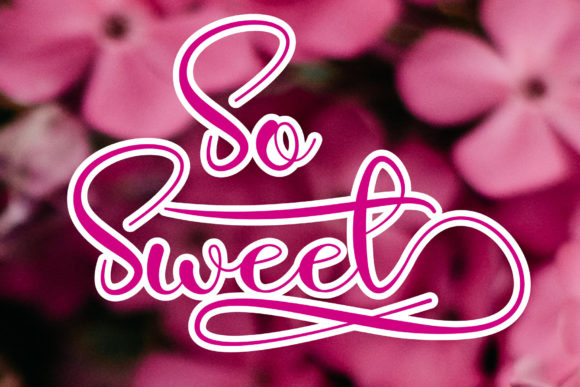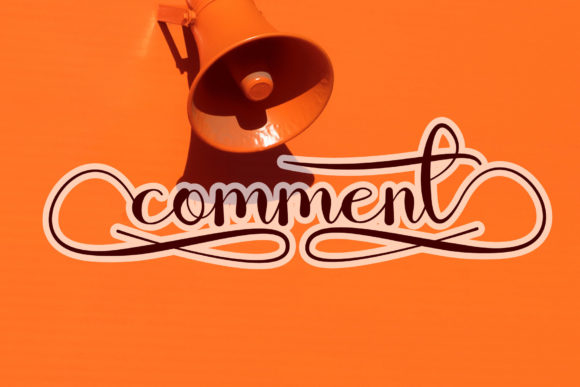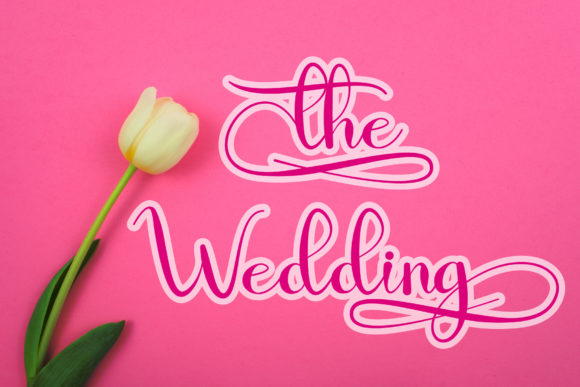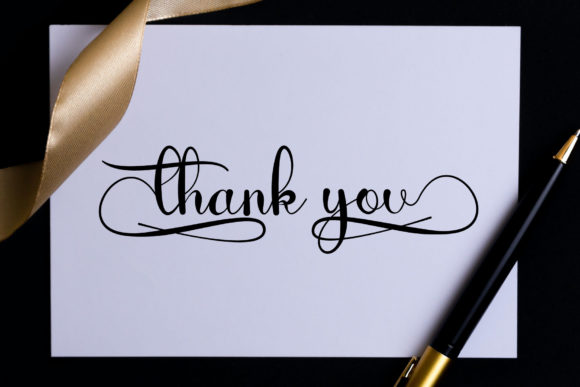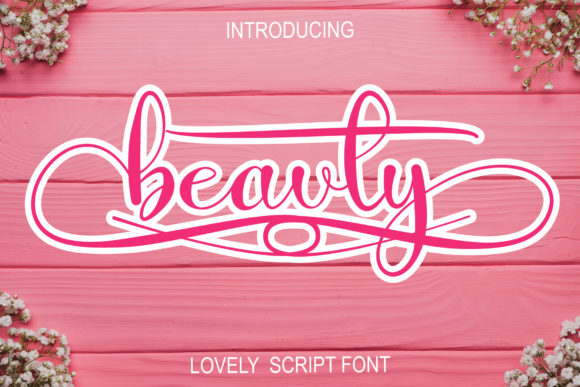
Introducing Beauty Font: The Epitome of Elegance and Charm
Are you a designer or crafter looking for a font that exudes romance and sophistication? Look no further than Beauty Font, a stunning handwritten font that embodies the very essence of charm and elegance. With its delicate and flowing characters, Beauty Font is the perfect choice for projects that require lovely, romantic typography.
Handwritten fonts have a unique ability to add a personal touch to any design project. They evoke feelings of warmth, intimacy, and connection, making them ideal for a wide range of applications, from wedding invitations and greeting cards to branding and packaging. Beauty Font takes this to the next level with its exquisite and intricate design, making it a standout among other handwritten fonts.
What Makes Beauty Font So Special?
Beauty Font is more than just a pretty face. It’s a carefully crafted font that has been designed to make your designs shine. Here are just a few features that make it so special:
- Delicate and Flowing Characters: Each character in Beauty Font has been carefully designed to be delicate and flowing, with a sense of movement and elegance. This creates a beautiful, organic feel that’s perfect for romantic and feminine designs.
- Charming and Elegant: Beauty Font embodies charm and elegance in every character, making it perfect for projects that require a touch of sophistication and refinement.
Beauty Font is a versatile font that’s perfect for a wide range of design projects, including:
- Wedding Invitations: Add a touch of romance and elegance to your wedding invitations with Beauty Font.
- Greeting Cards: Create beautiful, heartfelt greeting cards for special occasions like birthdays, anniversaries, and holidays.
- Branding and Packaging: Use Beauty Font to add a touch of sophistication and refinement to your branding and packaging.
- Stationery and Journaling: Add a personal touch to your stationery and journaling with Beauty Font’s delicate and flowing characters.
Tips for Using Beauty Font
Here are a few tips for getting the most out of Beauty Font:
- Experiment with Different Sizes: Beauty Font looks beautiful in a variety of sizes, from large headings to smaller body text.
- Play with Swashes and Glyphs: Take advantage of Beauty Font’s PUA encoding to access a wide range of swashes and glyphs.
- Pair with Other Fonts: Beauty Font pairs beautifully with other fonts, so don’t be afraid to experiment with different combinations.